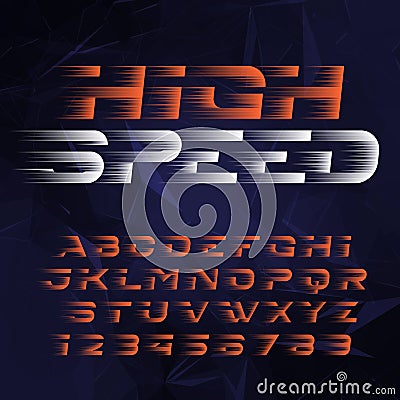
Speed Alphabet Font. Fast Speed Effect Futuristic Type Letters And Numbers. Vector Illustration
Speed alphabet font. Fast speed effect futuristic type letters and numbers. #134665264
Speed alphabet font. Fast speed effect futuristic type letters and numbers. Stock vector typescript for your design. Easy color change.